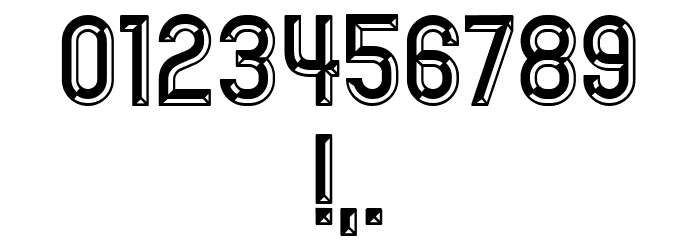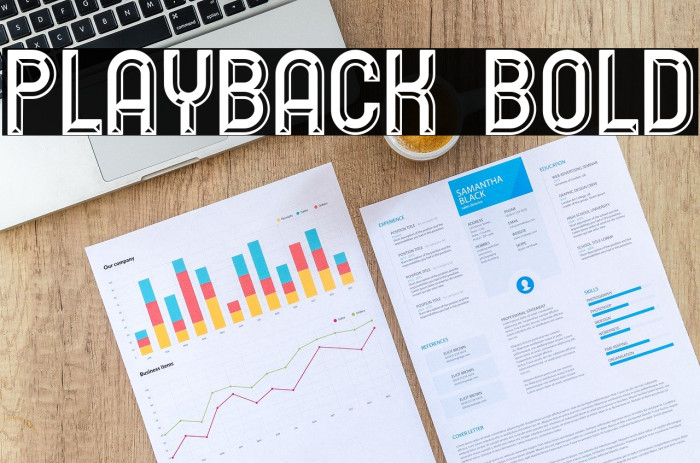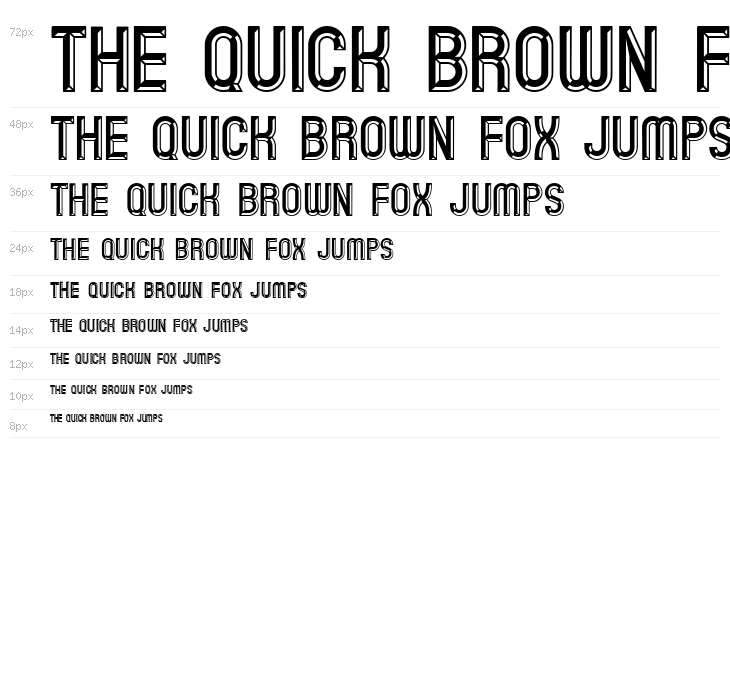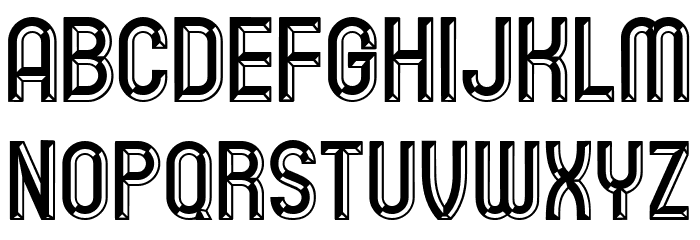
Playback Bold Font
Playback Bold Description
This font features a bold, geometric design with a strong emphasis on angular shapes and clean lines. The characters are outlined, creating a striking visual effect that adds depth and dimension. The uppercase letters are uniform in height, while the numerals and punctuation maintain a consistent style, enhancing readability. The font's unique style is characterized by its decorative elements, making it ideal for eye-catching designs. Its structured form and bold presence make it suitable for projects that require a modern and impactful look.
| Proposed Projects | Ideal for posters, logos, headlines, and branding materials that require a modern and striking appearance. |